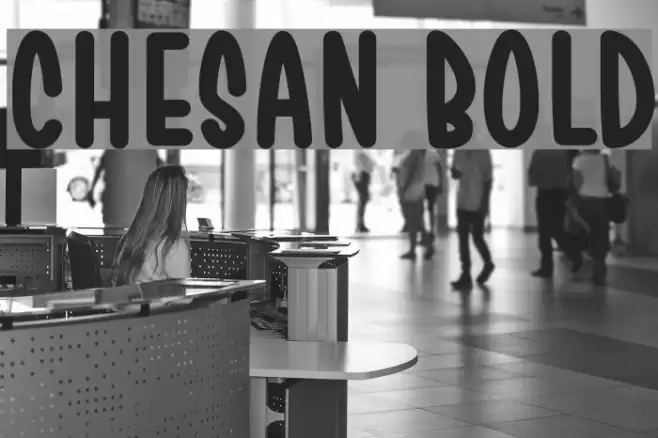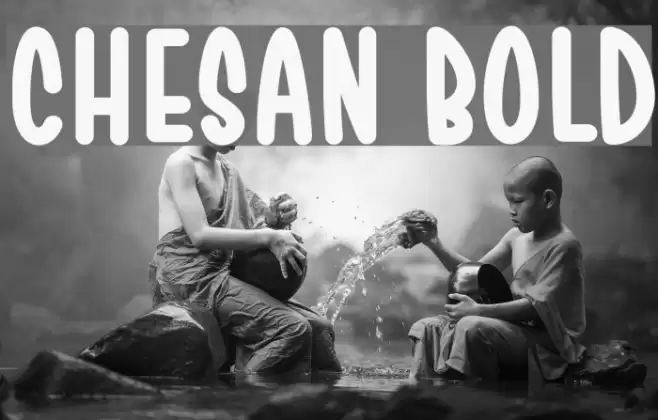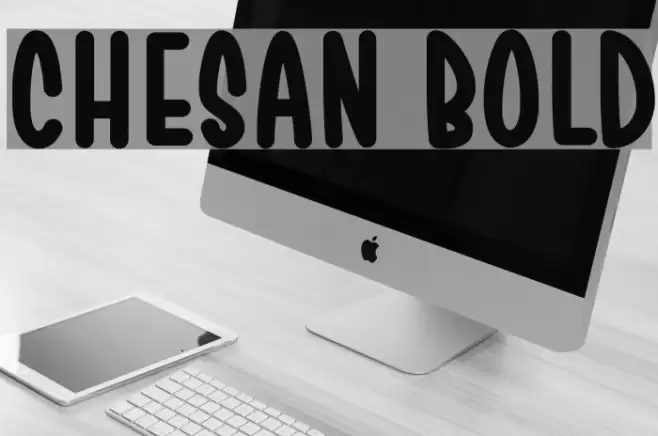
Chesan Bold Font
Chesan Bold Description
This font features a bold and playful design with rounded edges and a slightly condensed appearance. The characters are uniformly thick, giving it a strong presence and making it highly legible. The uppercase and lowercase letters maintain a consistent style, with a slight whimsical touch that adds character. The numbers and special characters are designed to match the overall playful aesthetic, making it suitable for creative and informal projects.
A bold, playful font with rounded edges and a slightly condensed style from Handwritten fonts.
- Proposed Projects: Ideal for children's books, playful branding, posters, and social media graphics.
- Width: Condensed
- Overall Style: Playful, Modern